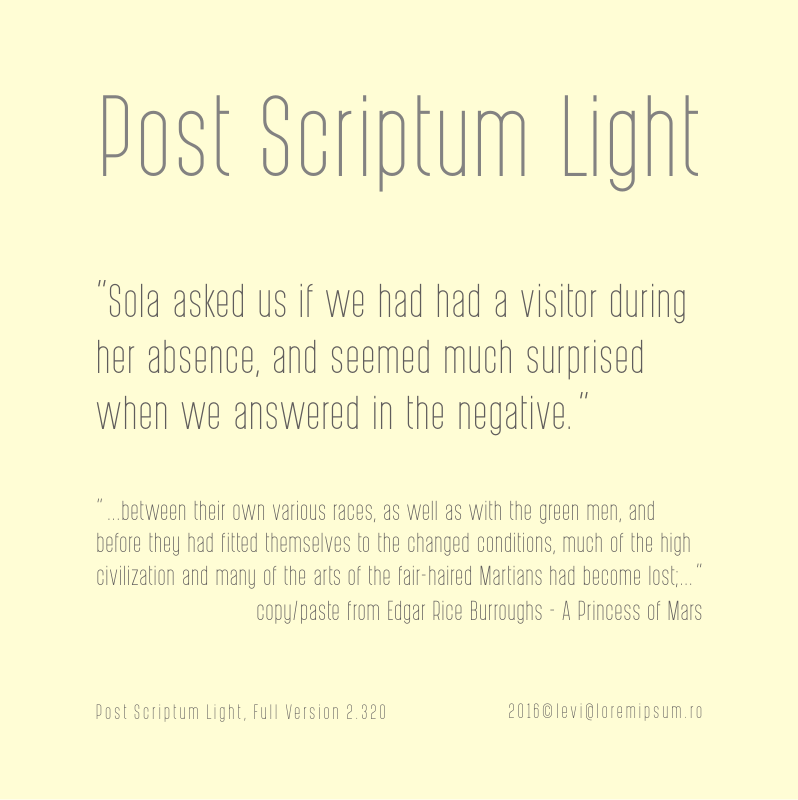
Font name: | Post Scriptum |
Author: | Levi Szekeres |
Note by Levi Szekeres | |
Font created for a clean, elegant look, for print mostly. I wouldn't recommend it for small sizes on screen, pixels have trouble reading thin lines with consistency and may give unexpected results. |